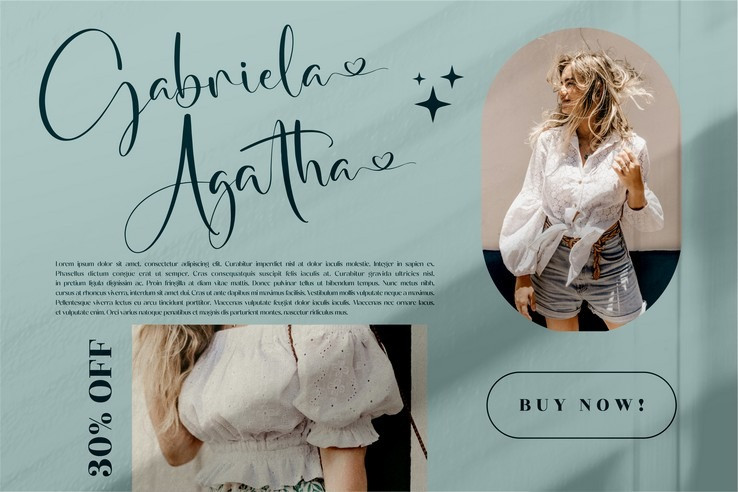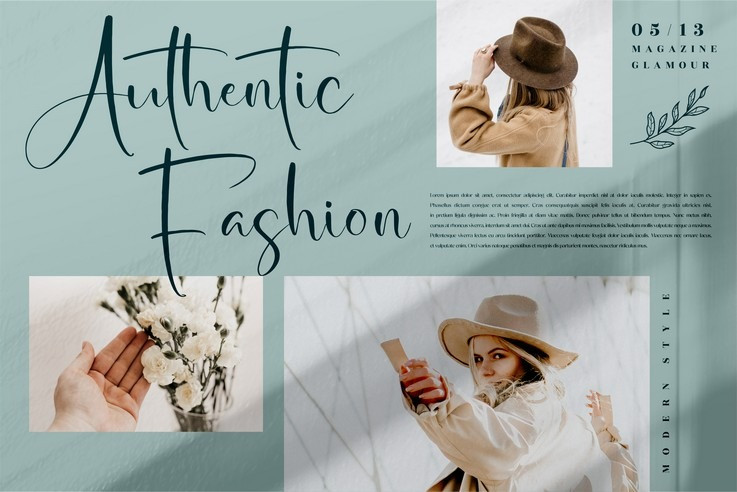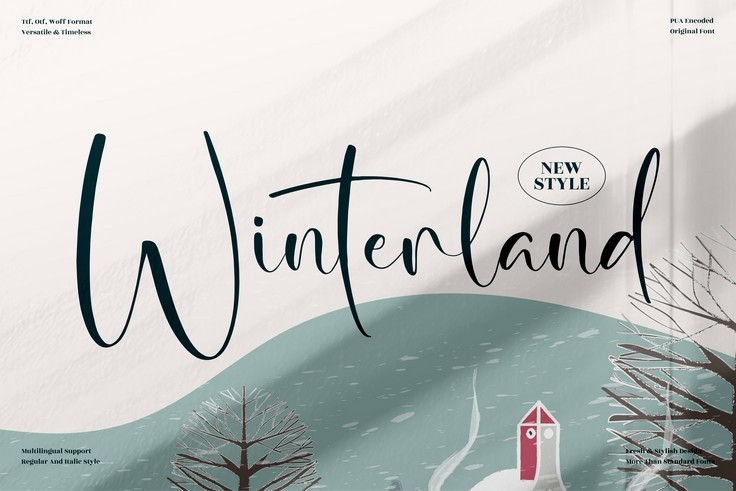
Chandiluna Calligraphy Font
Chandiluna is a delicate and stilish handwritten font. Add this font to your favorite creative ideas and notice how it makes them come alive!